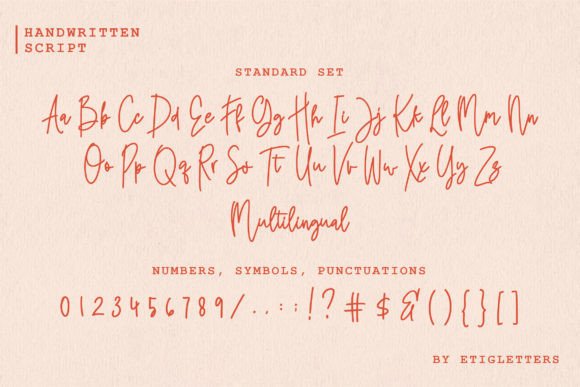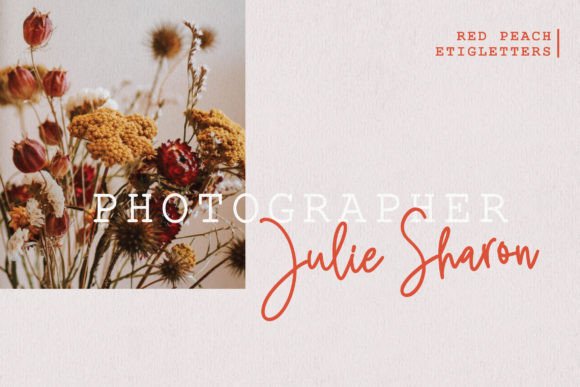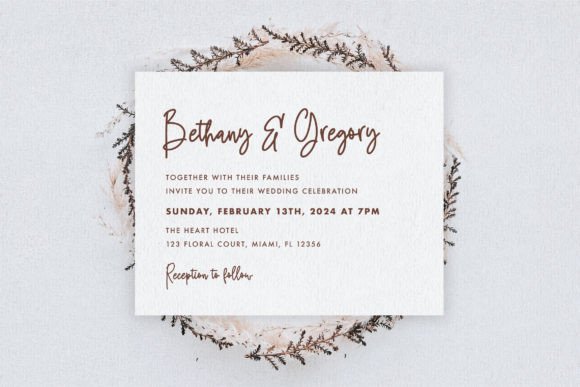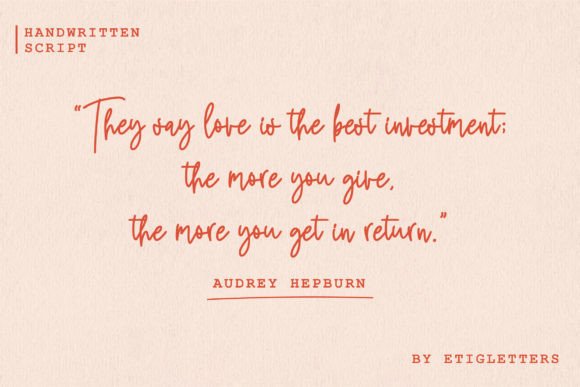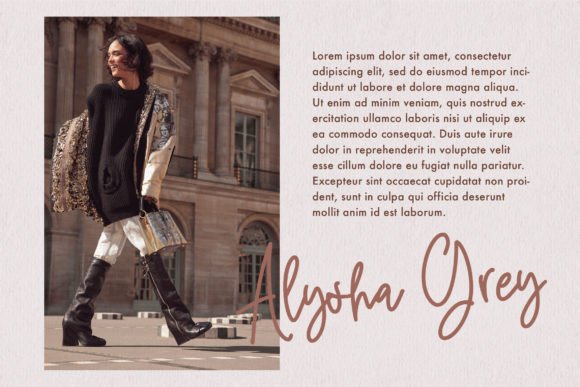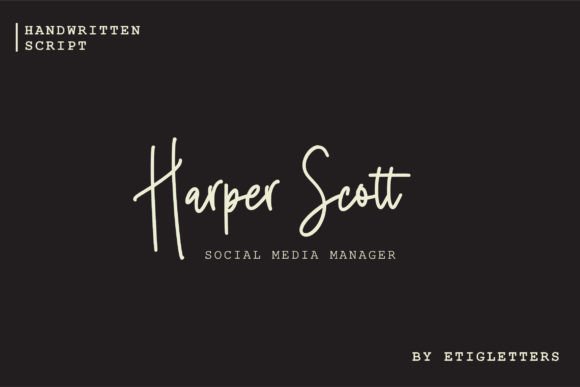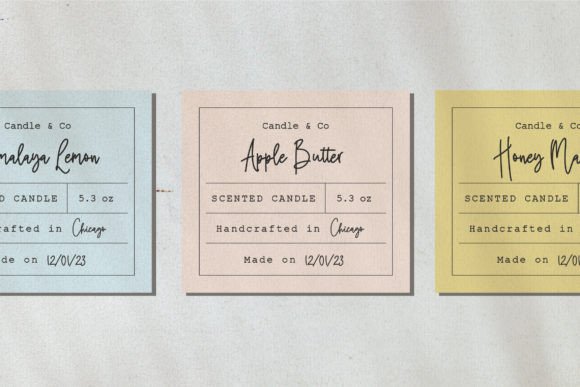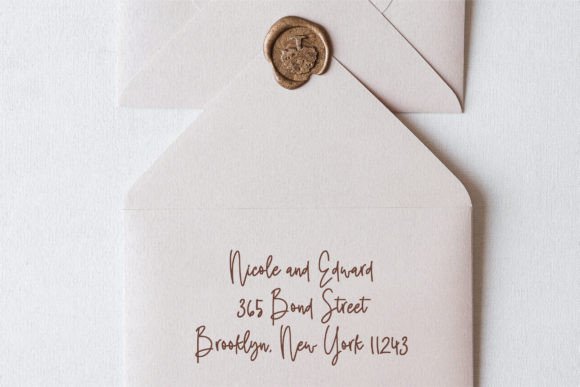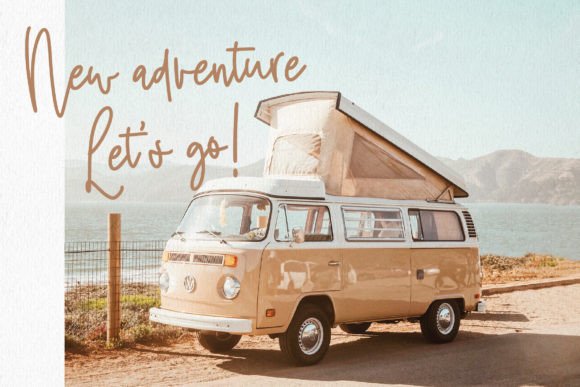
Red Peach Font
About Red Peach Font
“Red Peach” is a dazzling script font, meticulously crafted with high attention to detail. This font, with its intricate design, proves to be a wonderful asset to your font library, as it holds the potential to enhance a wide array of creative projects, regardless of the topic or theme.
The detailed and neatly crafted nature of “Red Peach” sets it apart, making it suitable for various design applications. Whether used for invitations, branding, headlines, or any creative endeavor, this font brings a touch of intricacy and sophistication to your projects.
The dazzling quality of “Red Peach” is evident in its script style, which adds a sense of flair and elegance to your text. This makes the font a versatile choice for projects that require a touch of glamour or a visually striking impact.
With “Red Peach” in your font library, you have a valuable tool that can elevate the aesthetic of your creations. Its detailed craftsmanship ensures that it stands out as a unique and eye-catching element within your designs.
Incorporating “Red Peach” into your projects allows you to explore the font’s potential to enhance and bring a dazzling quality to your text. Whether used for print materials or digital media, this font becomes a captivating design element that contributes to the overall visual appeal of your creative endeavors.
In summary, “Red Peach” is not just a font; it’s a detailed and dazzling design asset that has the power to enhance and elevate any creation. Its meticulous craftsmanship and versatile style make it a valuable addition to your font library, ready to infuse sophistication and glamour into your next design project.